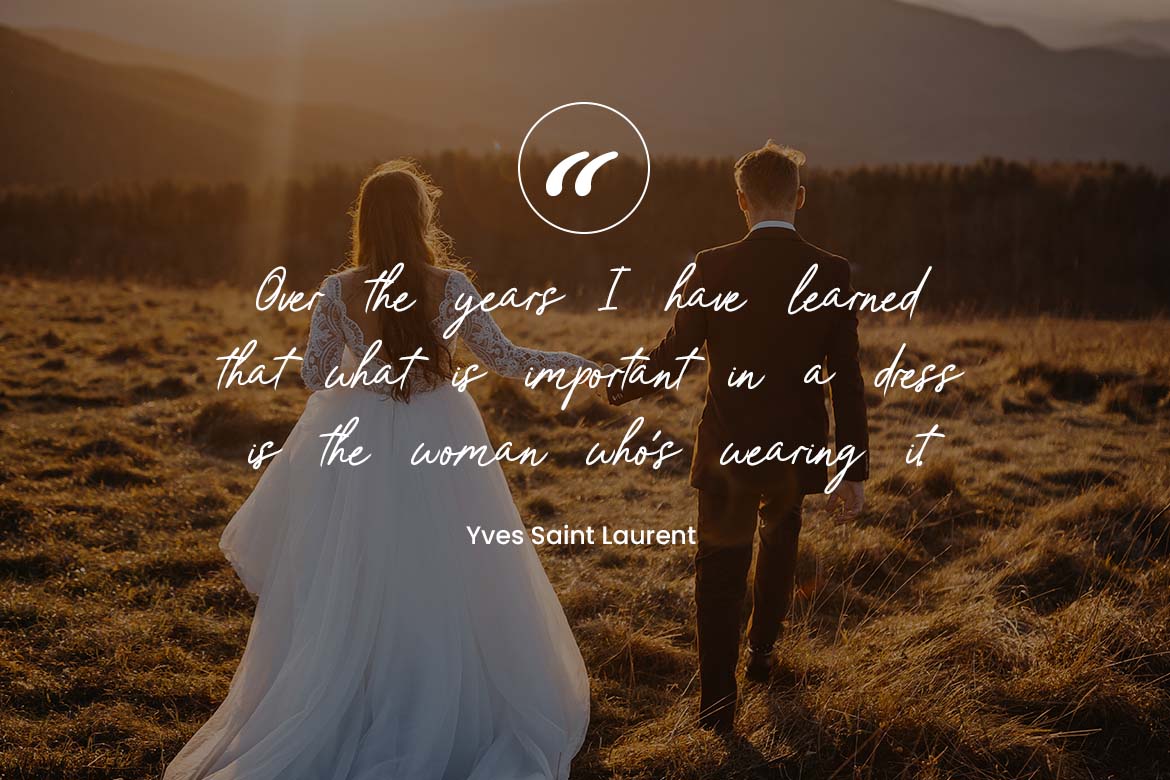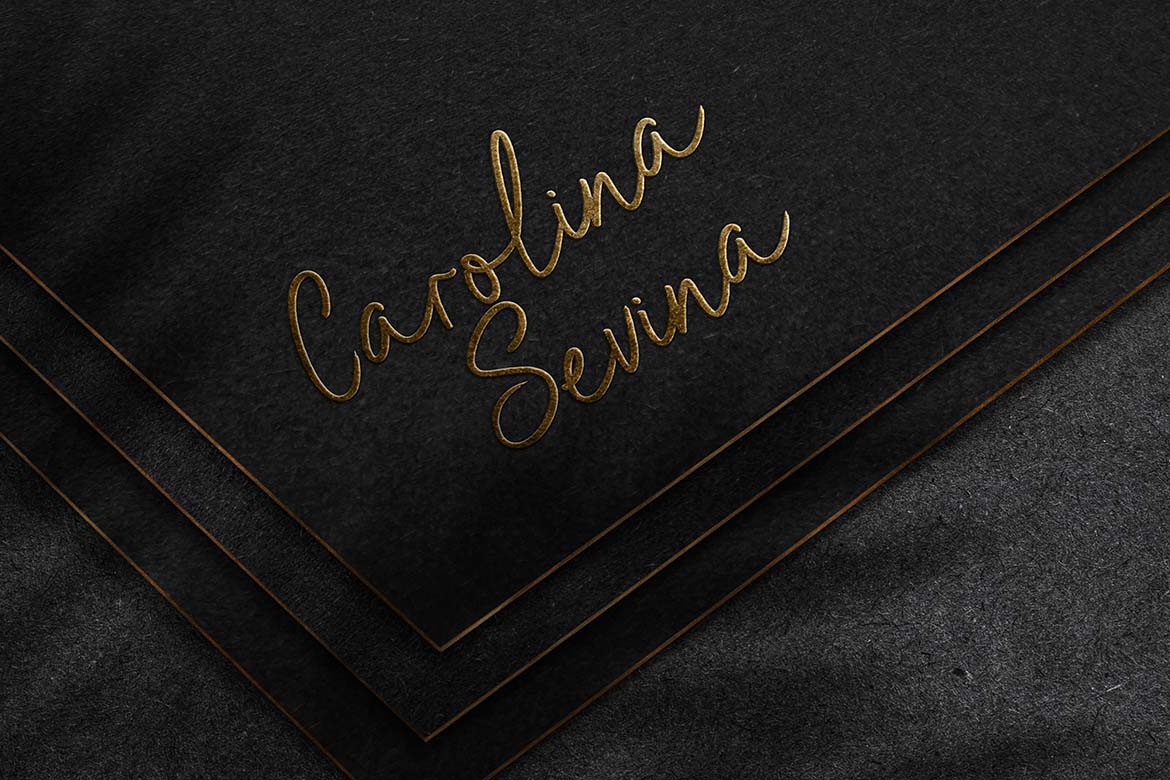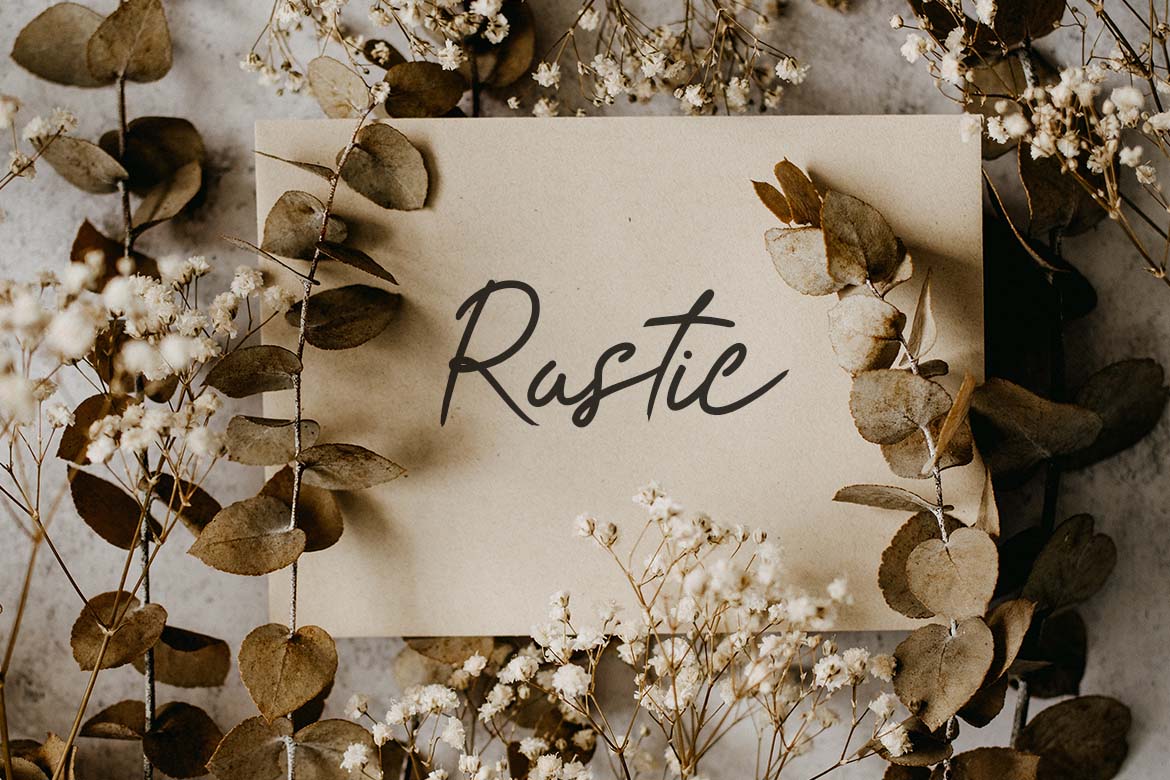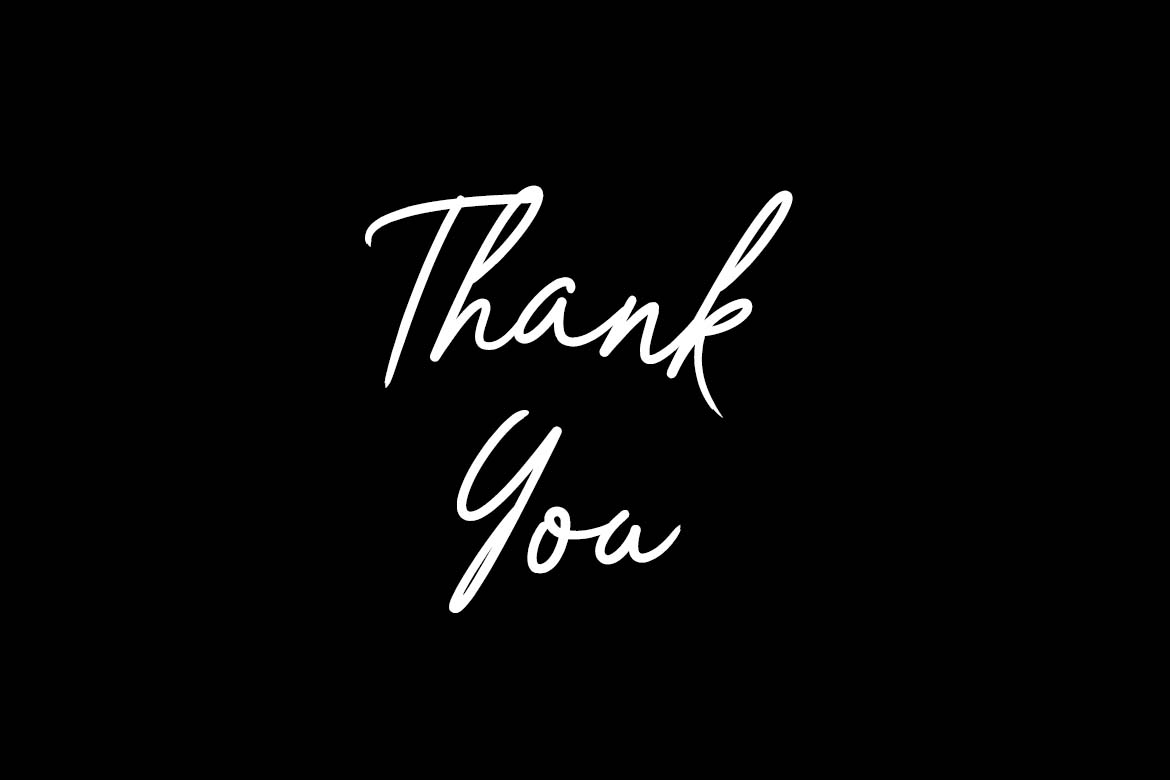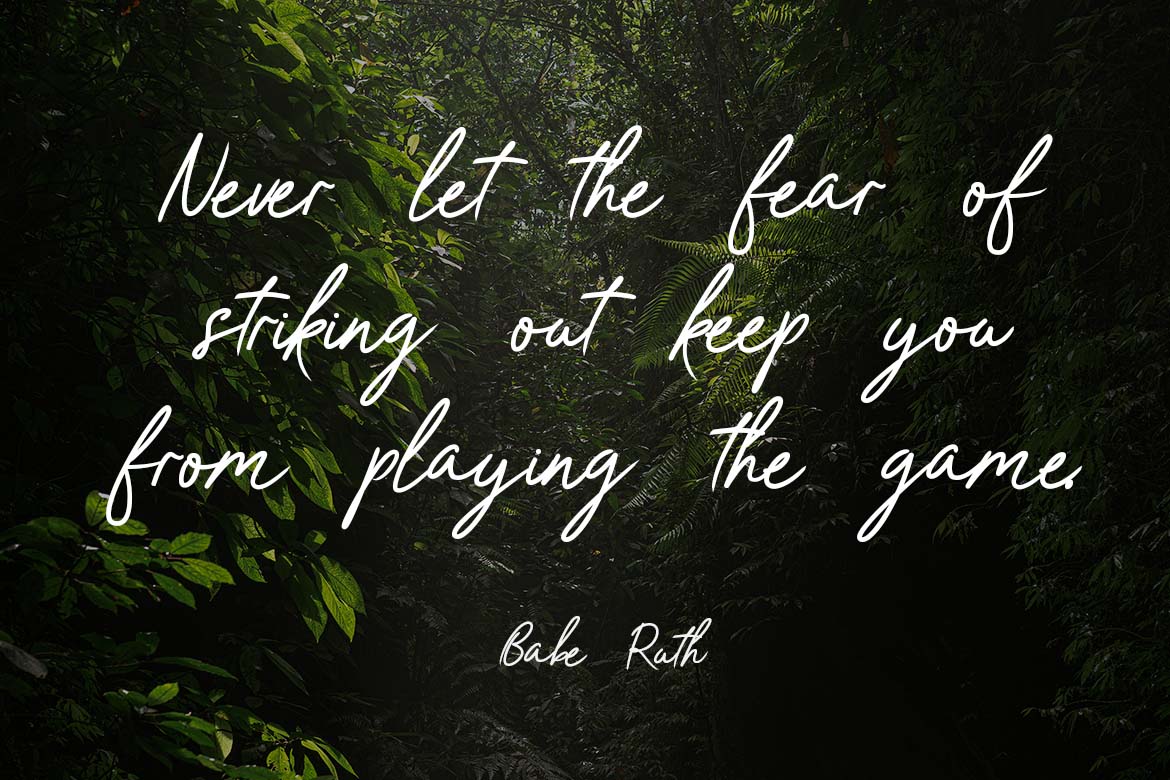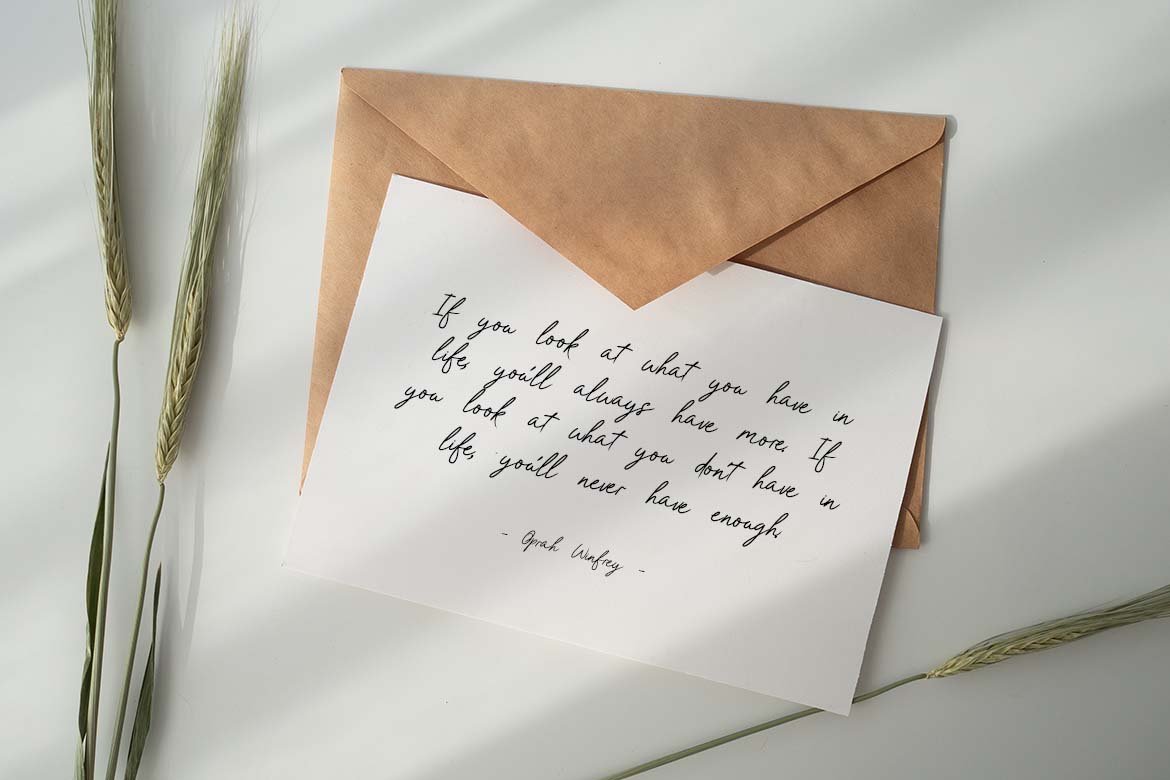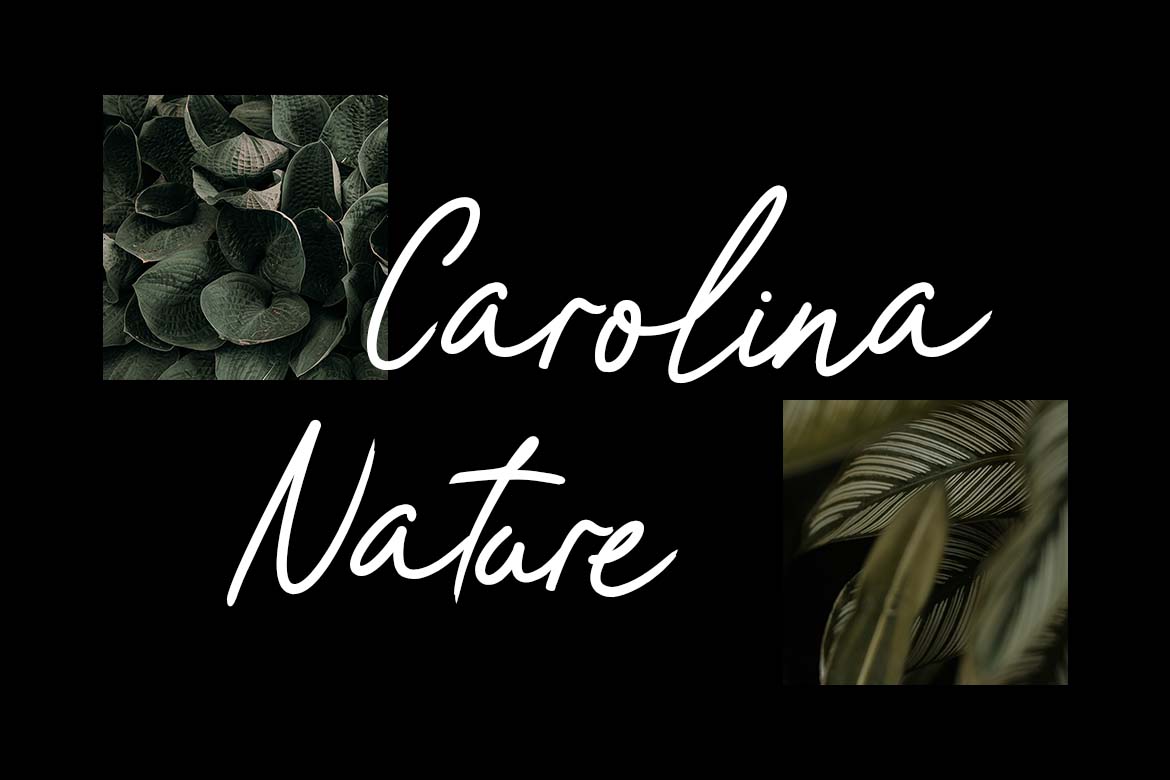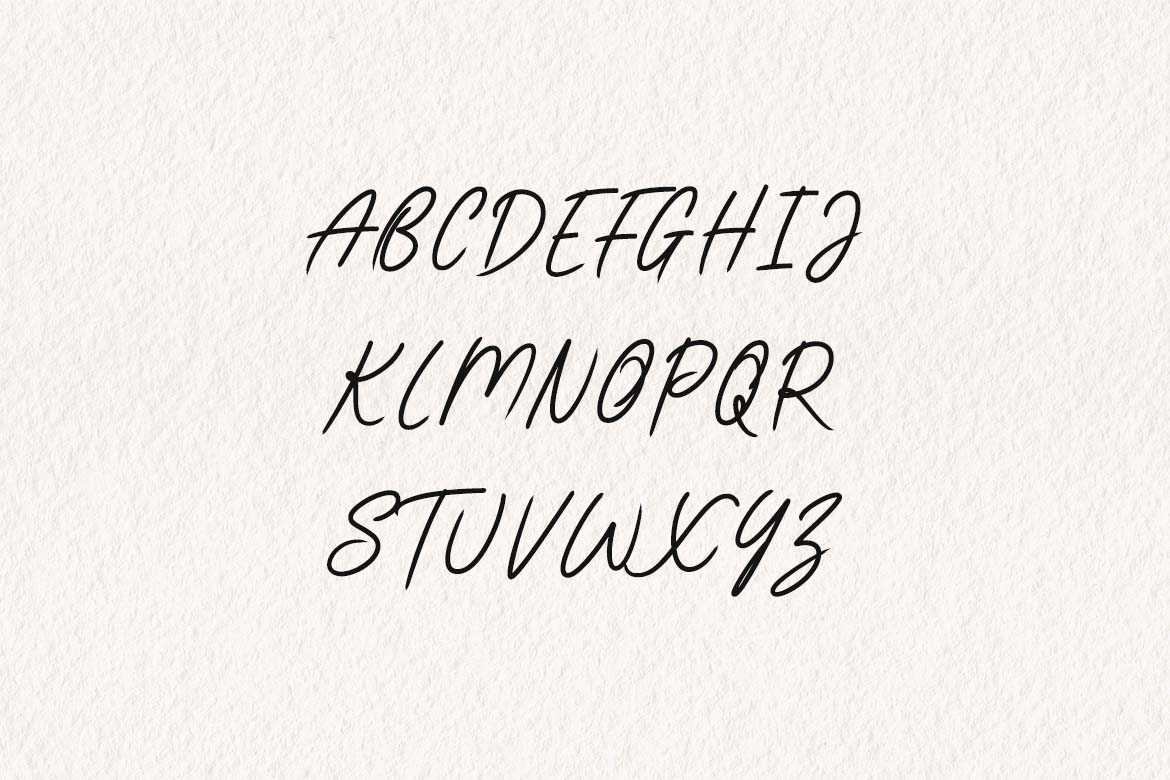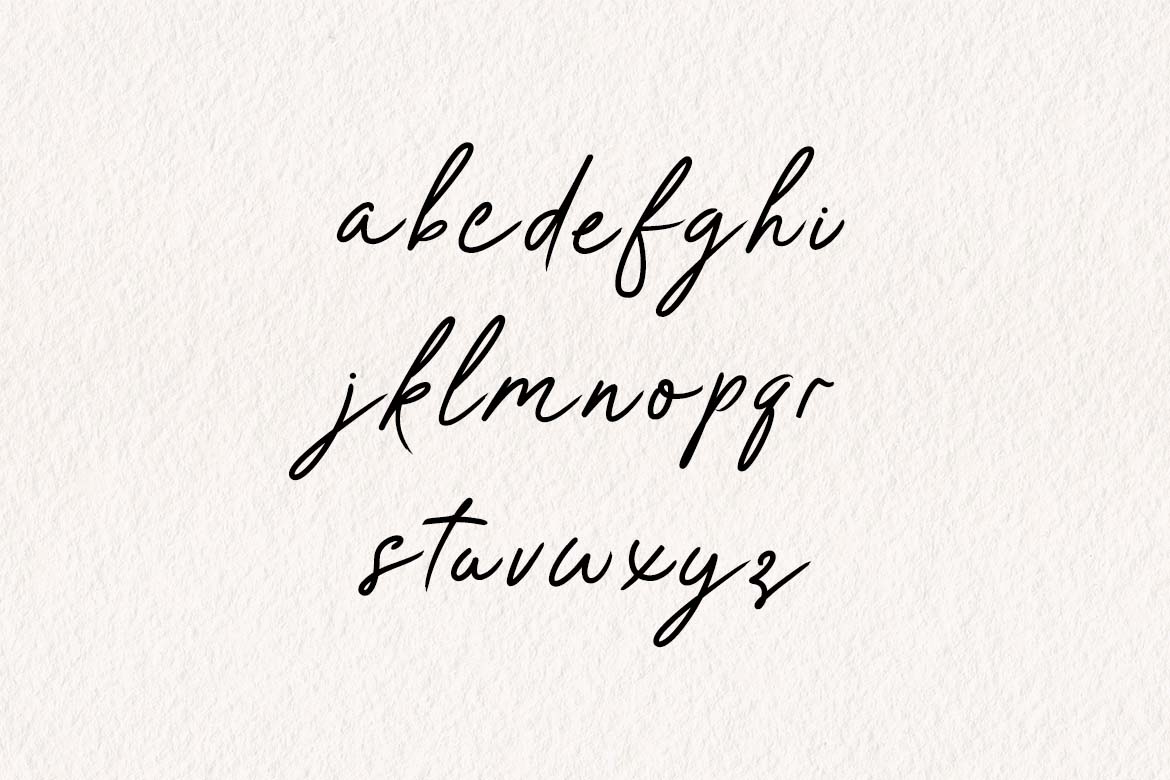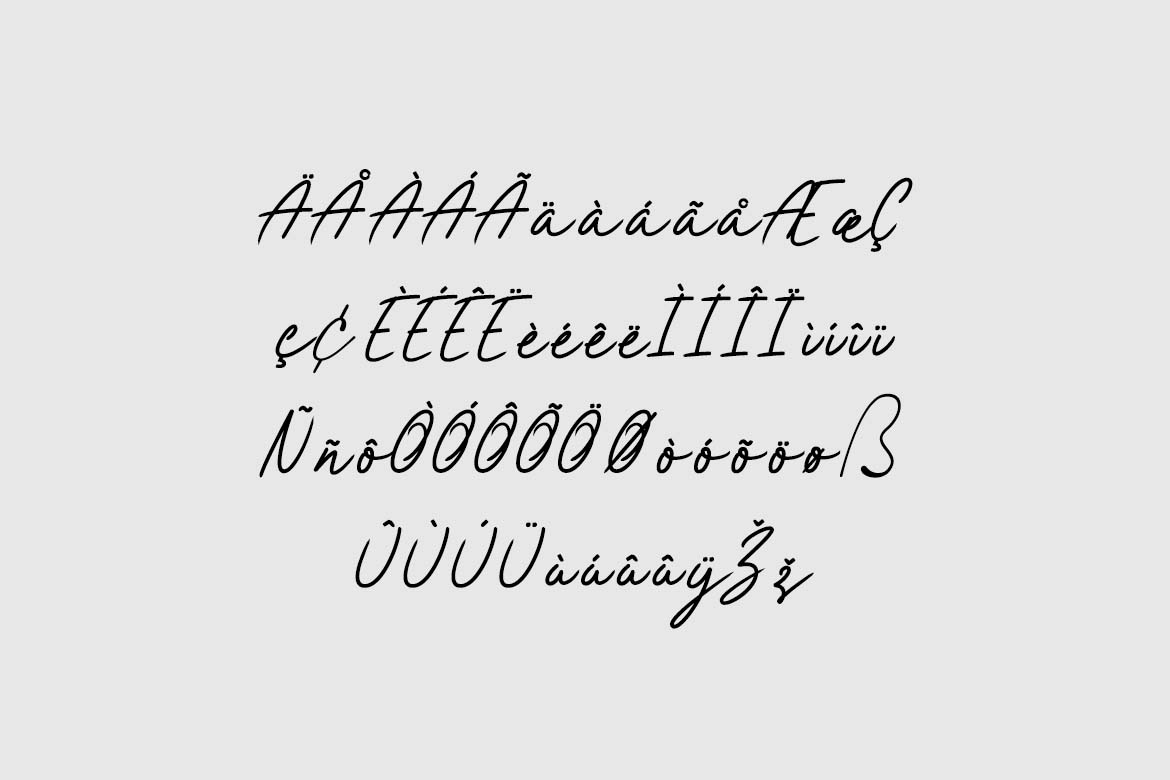
Sweet Romantic Roses Elegant Handwritten Font
Sweet Romantic Roses Elegant Handwritten Font. The modern display font feels beautiful classy, elegant, and stylish. This font is ideally suited for a wide variety of projects, such as signature, stationery, logo, wedding, typography quotes, magazine or book covers, website headers, branding, and more. Also, fashion-related branding or editorial design displays both masculine and feminine qualities.